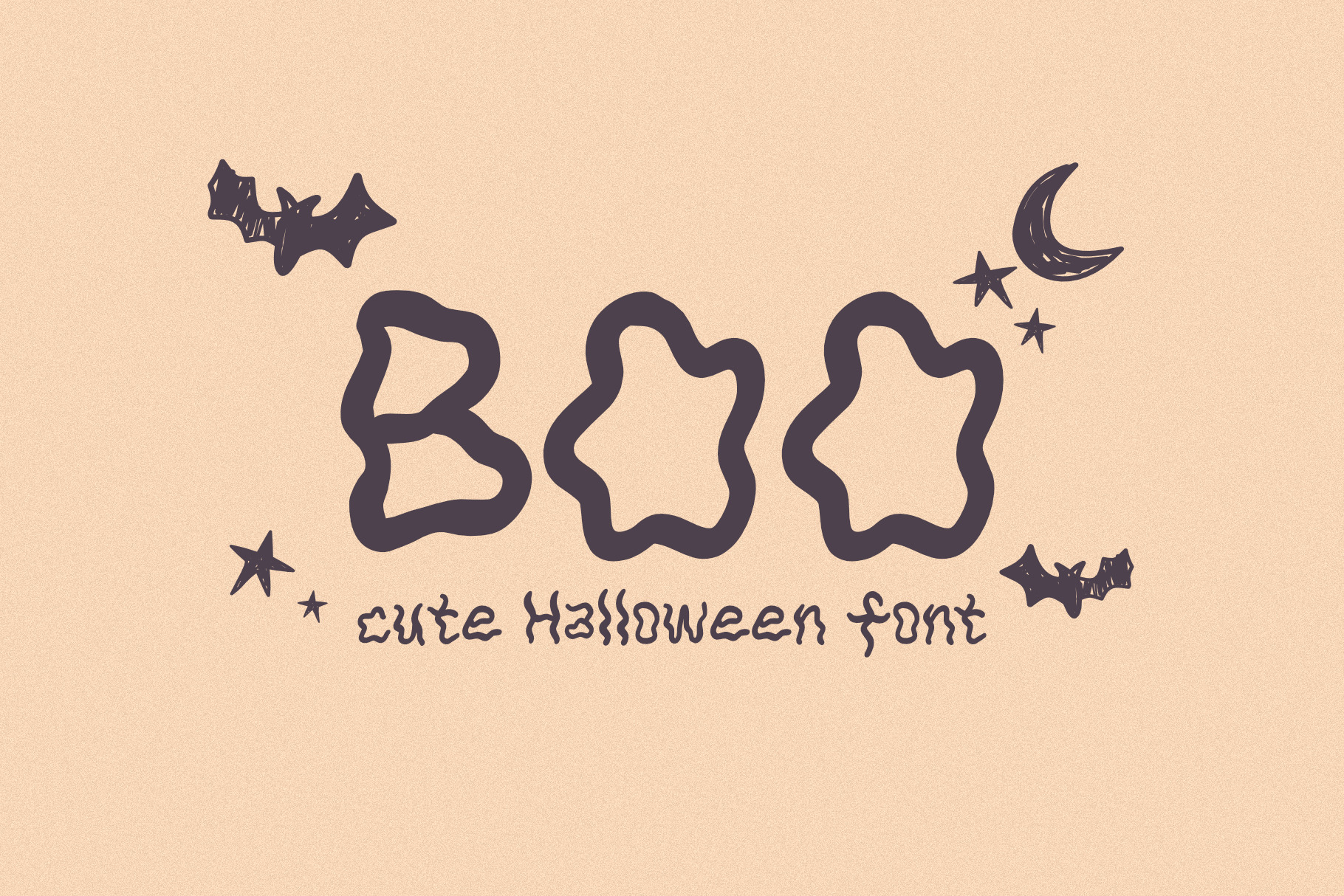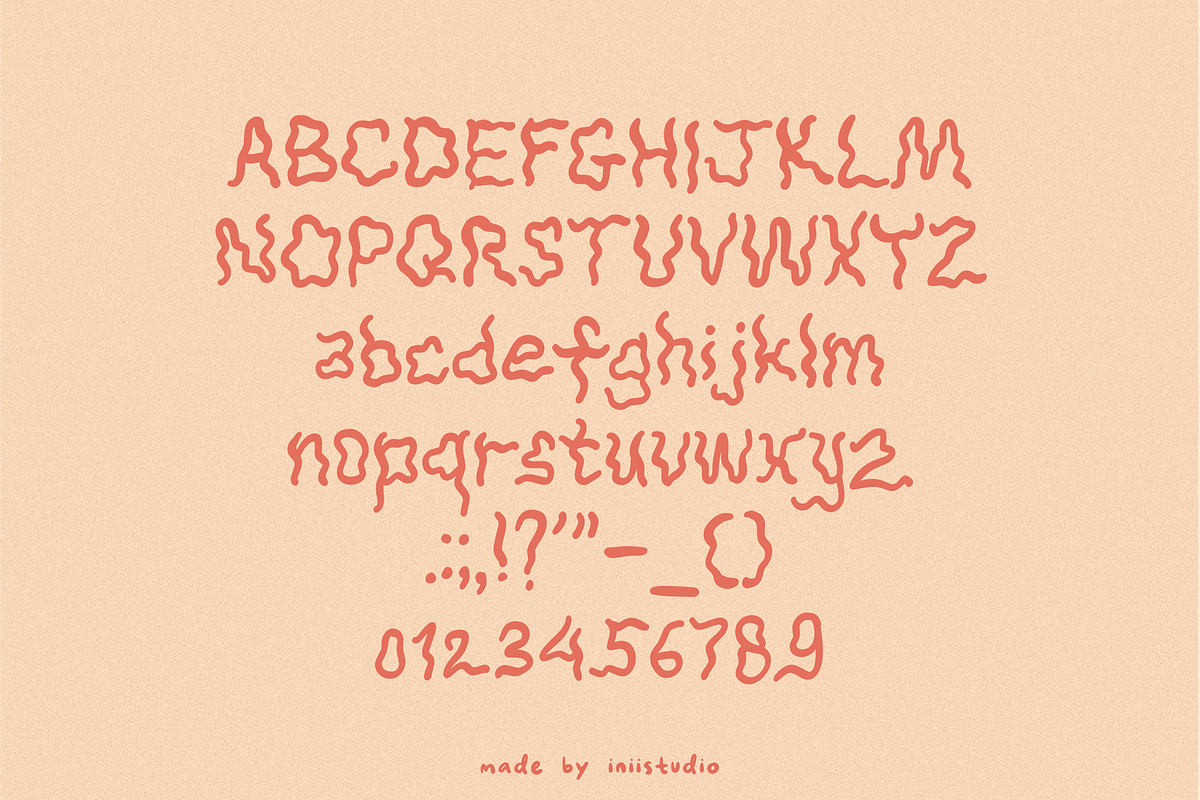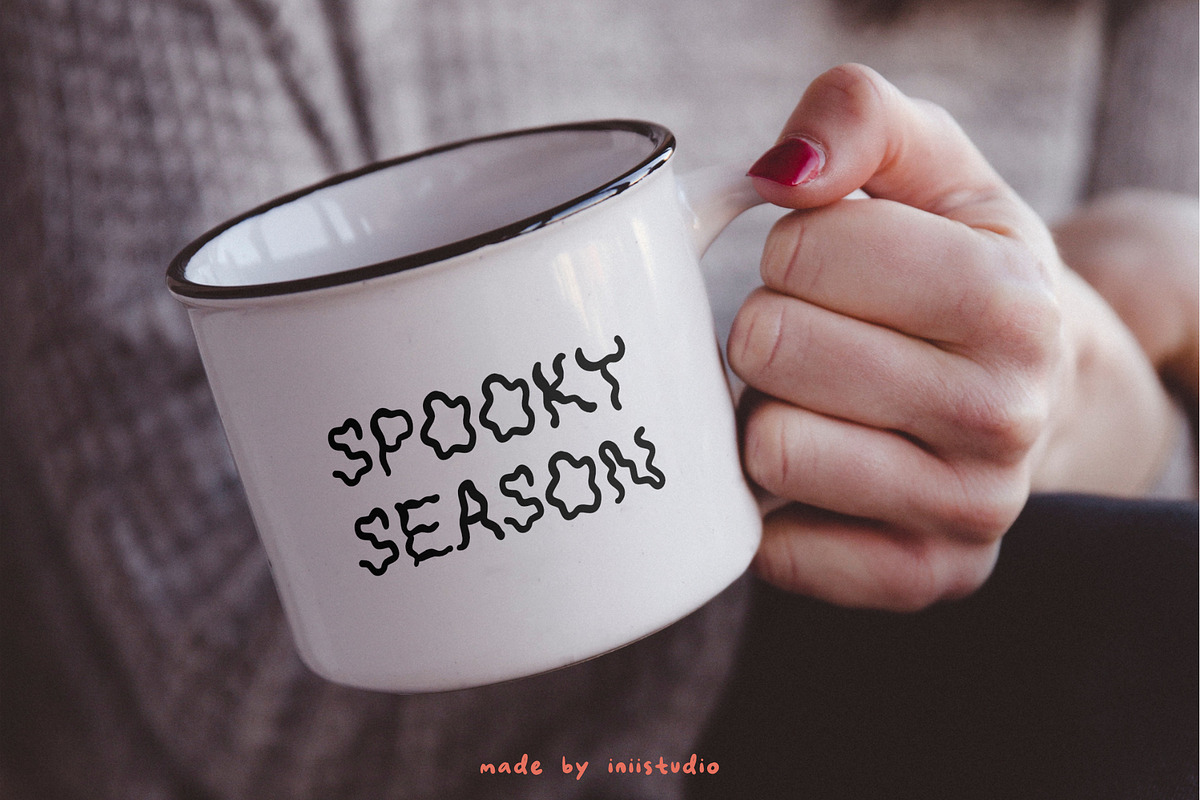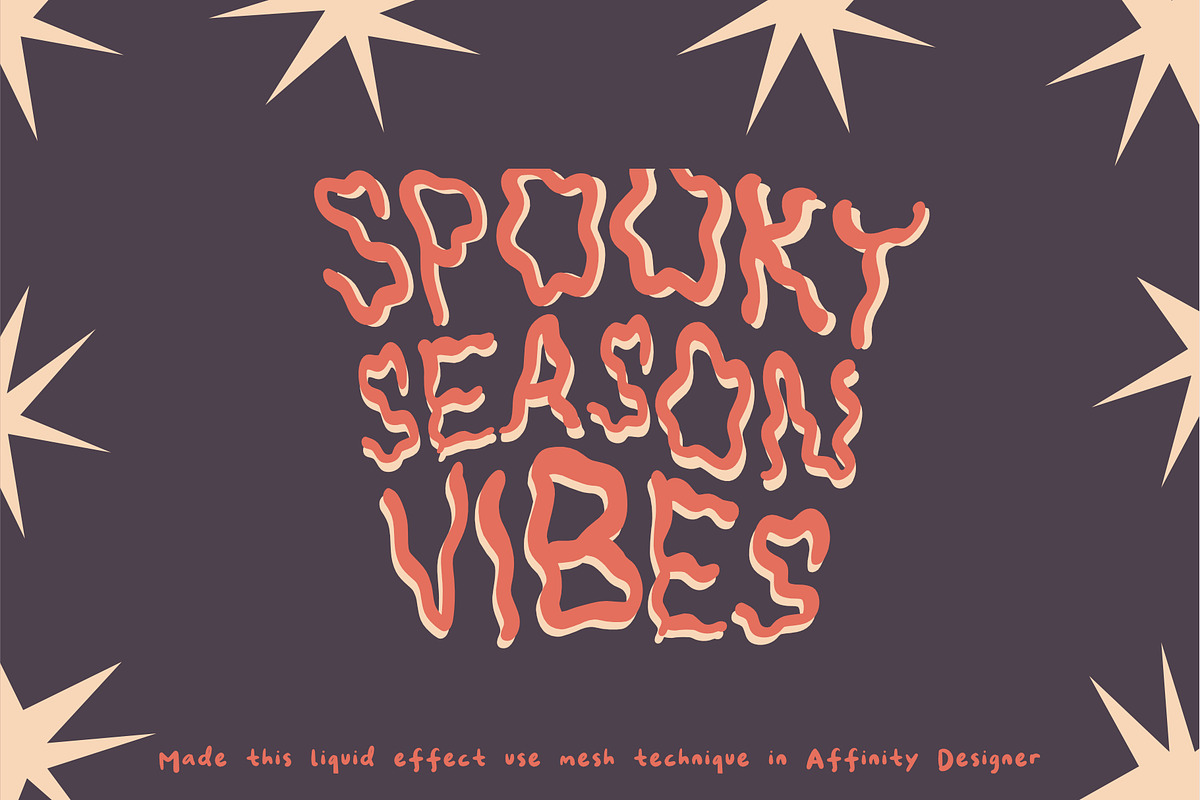
Boo - Cute Halloween Font
A fun, spooky font with a playful Halloween twist! With whimsical letters and ghostly charm, it's perfect for adding a cute and festive touch to Halloween-themed designs, invitations, and decorations.